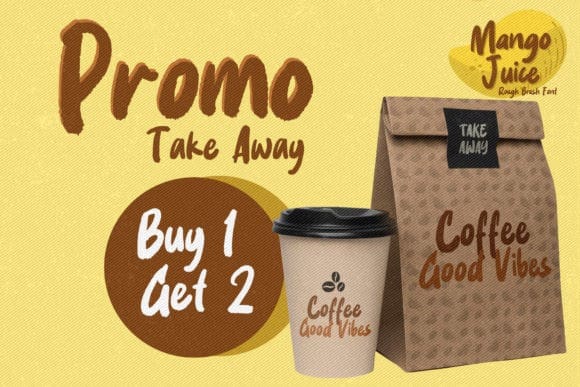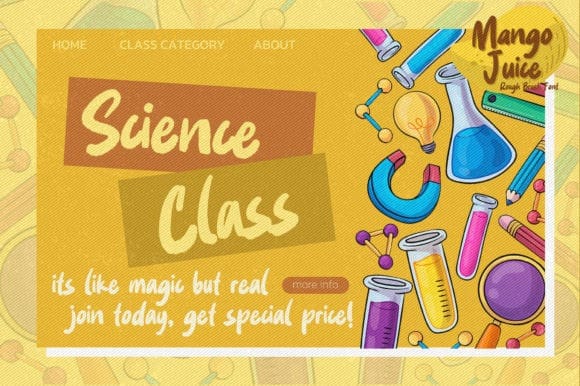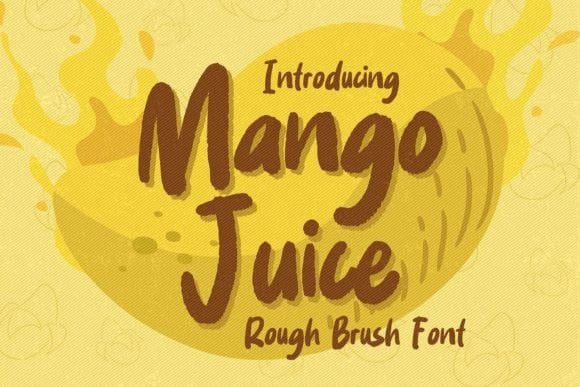
Mango Juice Font
Mango Juice Font is a cool and brushed display font. It works wonderfully on various casual and trendy designs. Your options are limitless!